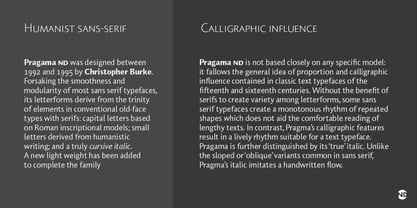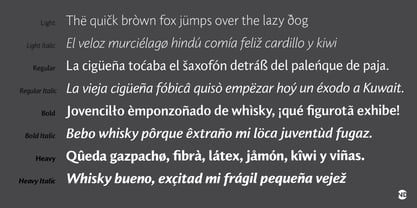
Pragma™ ND
by Neufville Digital
Pragma ND is a sans serif typeface with calligraphic features. Its vital rhythm facilitates the reading of long texts. It also has an “authentic” italic imitating the movement of handwriting. Its high legibility makes it an ideal typeface for long texts in analog and digital contexts.
Designers: Christopher Burke
Foundry: Neufville Digital